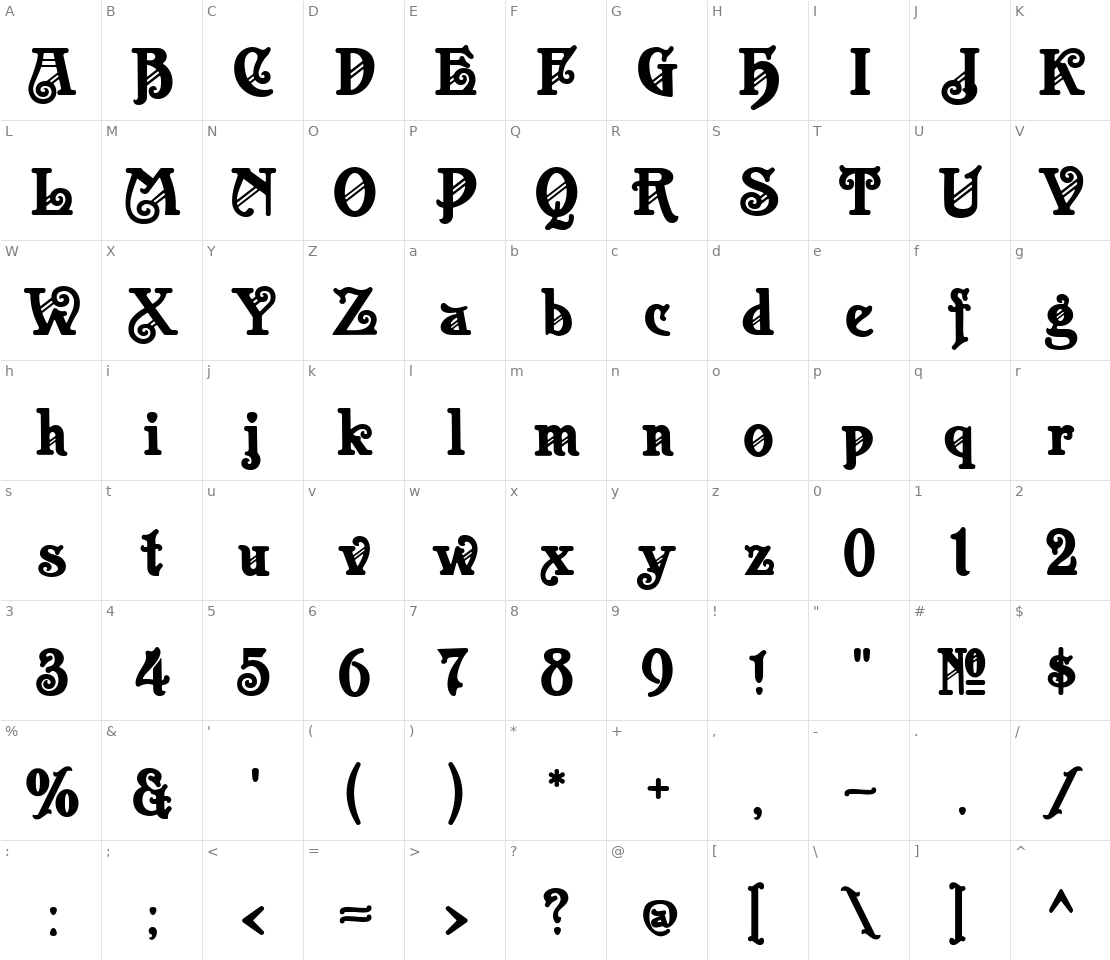
Apollo ASM
Apollo ASM is a bold decorative serif from Peter Wiegel with thick, curling strokes that give every letterform a sense of theatrical flourish. The ornamental details are heavy-handed in the best way, packing real personality into each character without losing legibility at display sizes. Best kept to headlines, posters, and branding where you want something that feels both whimsical and substantial.